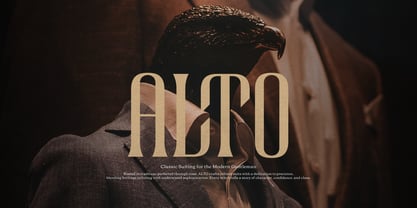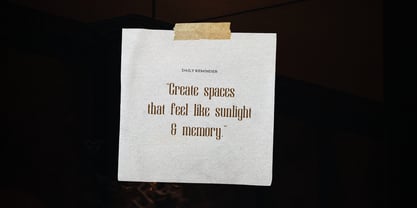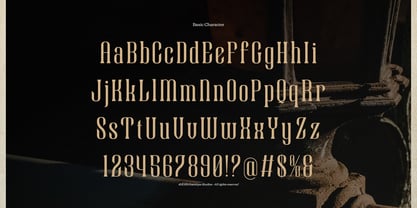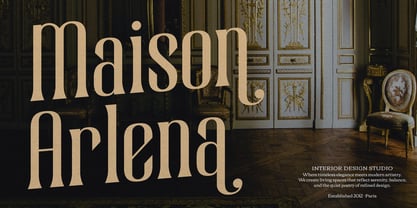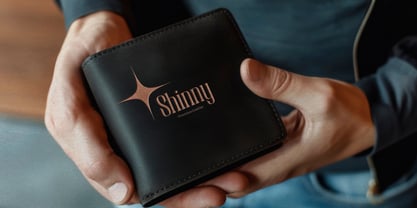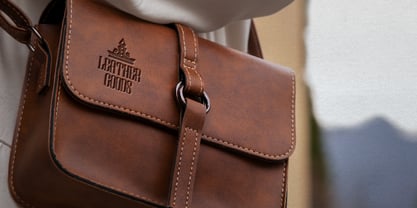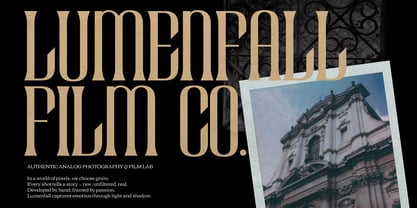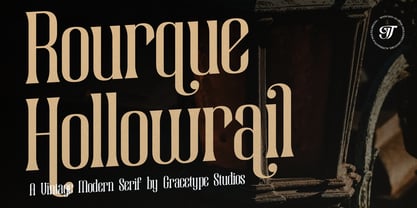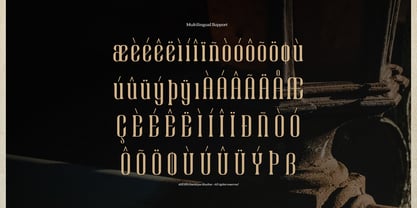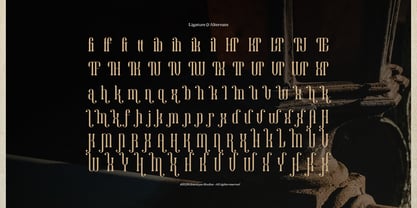
Rourque Hollowrail
Rourque Hollowrail | Vintage Modern Serif, from Gracetypestudio, suitable for any projects such as: logos, branding projects, homeware designs, product packaging, mugs, quotes, posters, shopping bags, t-shirts, book covers, name card, invitation cards, greeting cards, label, photography, watermark, special events, and all your other lovely projects that need a Handwritten taste.